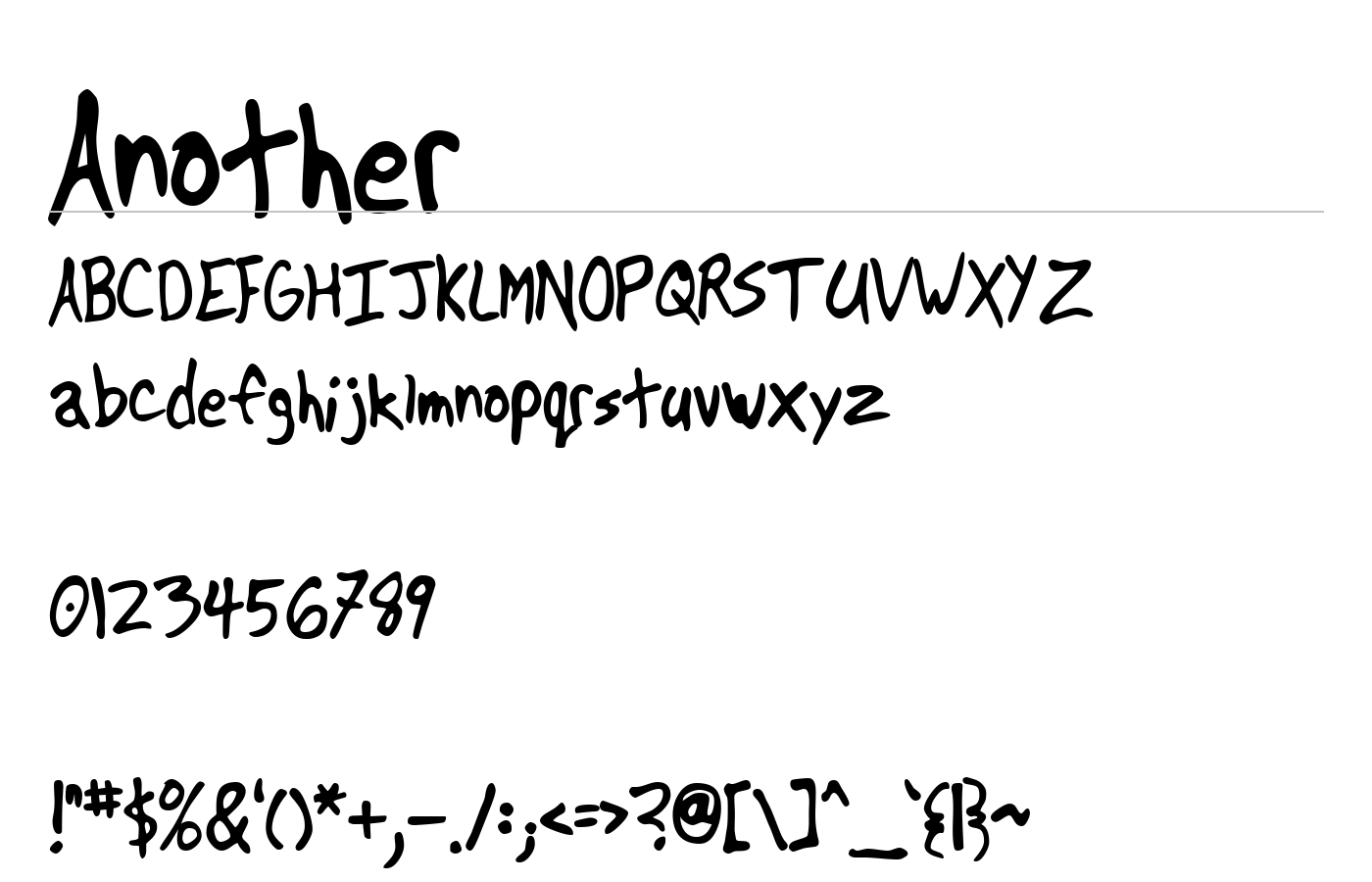
Another Font is a playful and casual handwritten typeface with a natural, spontaneous feel. Its irregular strokes and quirky letter shapes give it an approachable and friendly personality, making it ideal for creative projects, informal branding, and fun headlines. This font works best where a personal, human touch is desired, such as children's books, invitations, or lifestyle websites.
Another Font